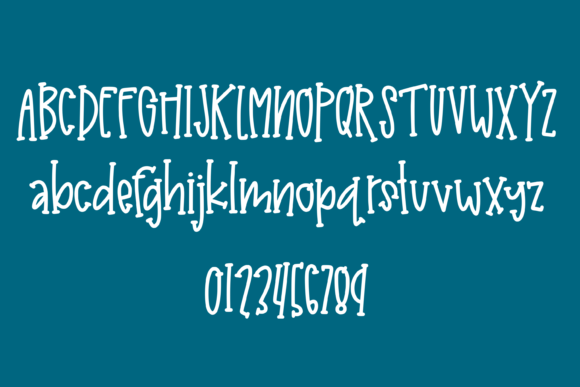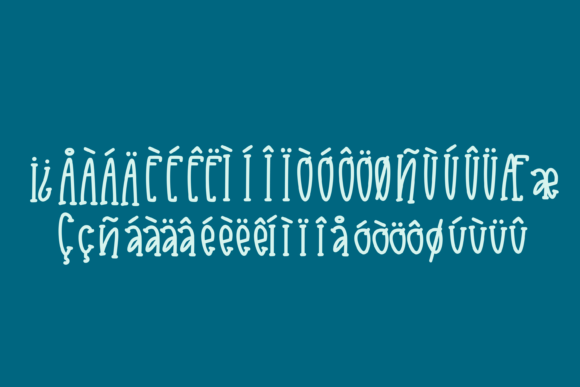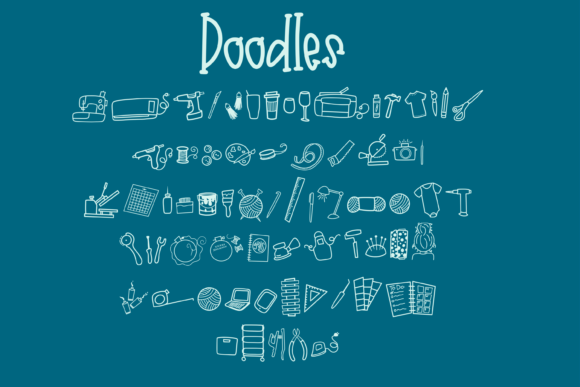
CraftyGal Font: Add a Playful Touch to Your Designs
Are you a crafter, designer, or DIY enthusiast looking for a font that can add a dash of personality to your projects? Look no further than CraftyGal, a fun, quirky, and handcrafted font that’s perfect for bringing a bit of whimsy to your designs. In this article, we’ll take a closer look at the CraftyGal font, its features, and how you can use it to take your designs to the next level.
What is CraftyGal Font?
CraftyGal is a handcrafted font designed to add a playful and creative touch to any project. Its doodle-inspired letterforms and quirky style make it perfect for crafters, designers, and anyone looking to bring a bit of personality to their designs. Whether you’re making labels, planner stickers, or cute banners, CraftyGal is the go-to font to bring your ideas to life.
Key Features of CraftyGal Font
So, what makes CraftyGal font so special? Here are some of its key features:
- Handcrafted with love: CraftyGal is a handcrafted font, which means that each letterform has been carefully designed to bring a touch of personality to your designs.
- Doodle-inspired letterforms: The font features doodle-inspired letterforms that are perfect for adding a playful touch to your designs.
- Quirky and fun: CraftyGal is a quirky and fun font that’s perfect for crafters, designers, and anyone looking to add a bit of whimsy to their designs.
- Comes with doodles: The font comes with a delightful set of doodles that you can use to add an extra touch of personality to your designs.
Uses of CraftyGal Font
CraftyGal font is perfect for a variety of design projects, including:
- Labels: Use CraftyGal font to create fun and colorful labels for your craft projects, party favors, or gifts.
- Planner stickers: Add a playful touch to your planner stickers with CraftyGal font.
- Cute banners: Create cute banners for parties, events, or social media with CraftyGal font.
- DIY projects: Use CraftyGal font to add a personal touch to your DIY projects, such as handmade cards, gift tags, or scrapbook pages.
Why Choose CraftyGal Font?
So, why choose CraftyGal font over other fonts? Here are some reasons:
- Unique and playful: CraftyGal font is a unique and playful font that can add a dash of personality to your designs.
- Versatile: CraftyGal font is versatile and can be used for a variety of design projects.
- Delightful doodles: The font comes with a delightful set of doodles that can add an extra touch of personality to your designs.
Tips for Using CraftyGal Font
Here are some tips for using CraftyGal font:
- Experiment with colors: CraftyGal font looks great with bright and bold colors, so don’t be afraid to experiment with different color combinations.
- Mix and match: Mix and match CraftyGal font with other fonts to create a unique and playful look.
- Add doodles: Add doodles to your designs to give them an extra touch of personality.
- Use for personal projects: Use CraftyGal font for personal projects, such as handmade cards, gift tags, or scrapbook pages.
| Font Name | CraftyGal Font |
| Author | kitaleigh |
In conclusion, CraftyGal font is a fun, quirky, and handcrafted font that’s perfect for adding a playful and creative touch to any project. With its doodle-inspired letterforms and delightful set of doodles, this font is a must-have for crafters, designers, and anyone looking to bring a bit of personality to their designs. So, why not give CraftyGal font a try and see how it can take your designs to the next level?